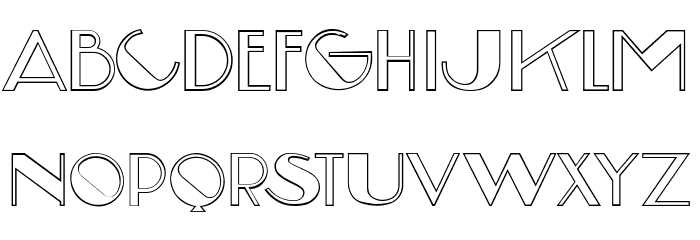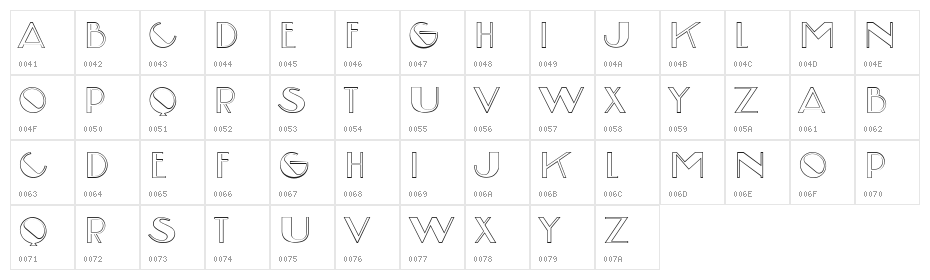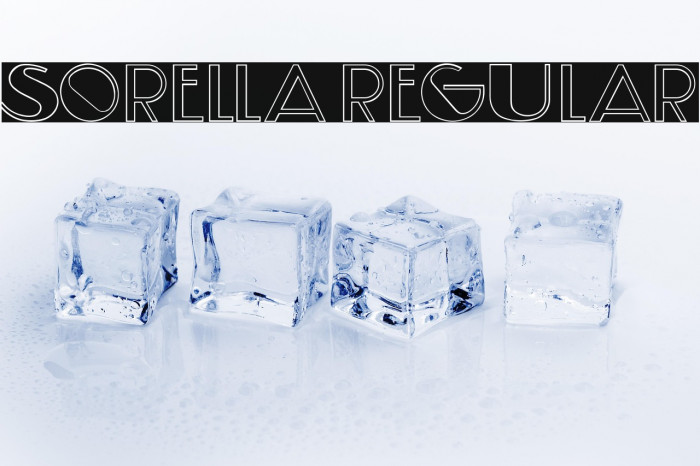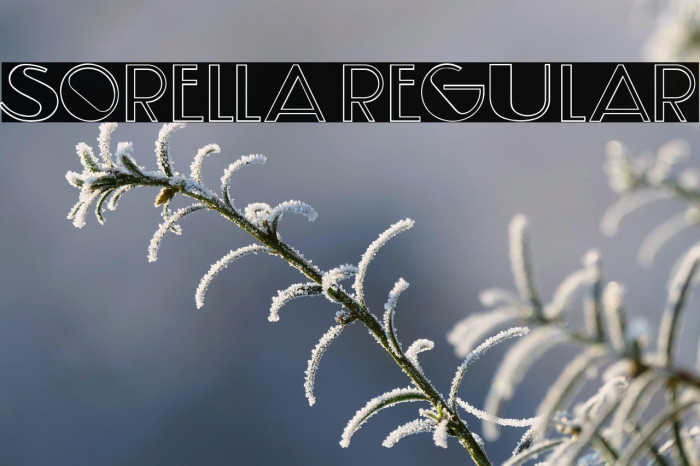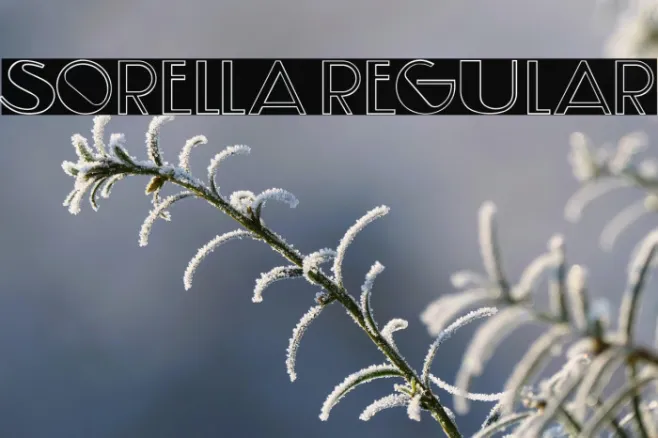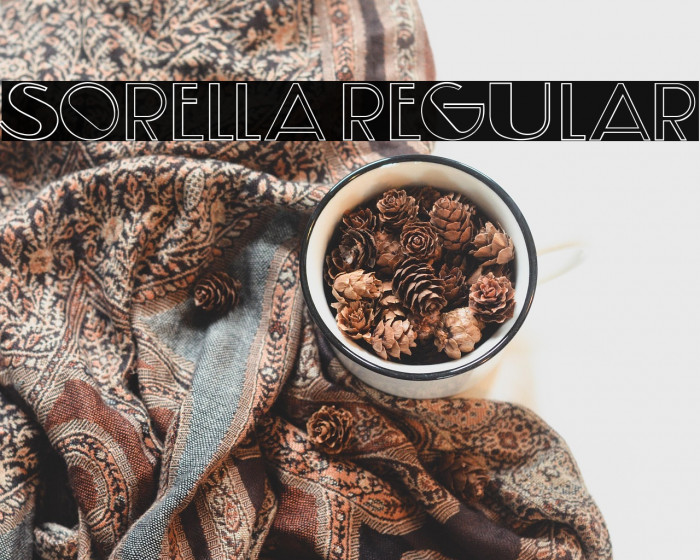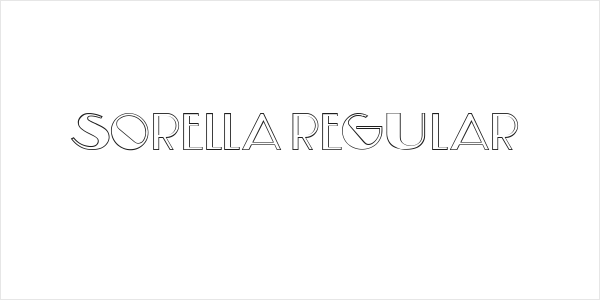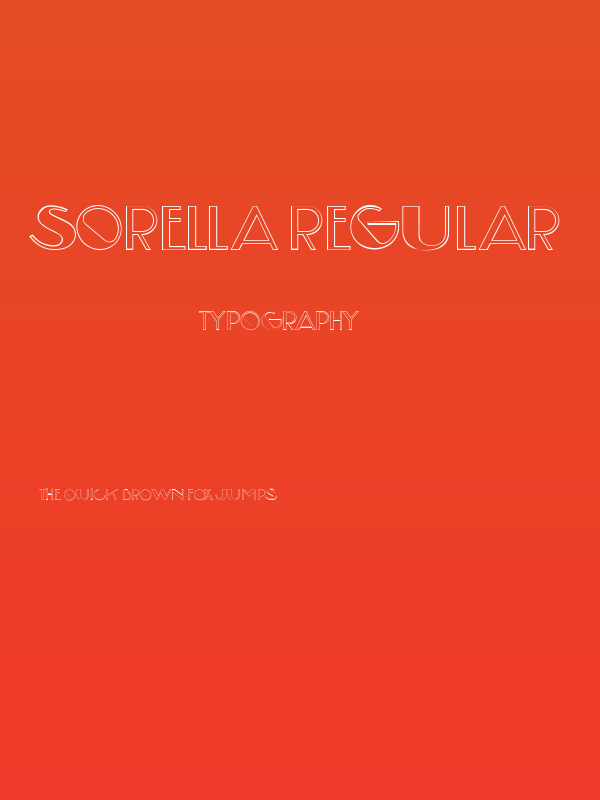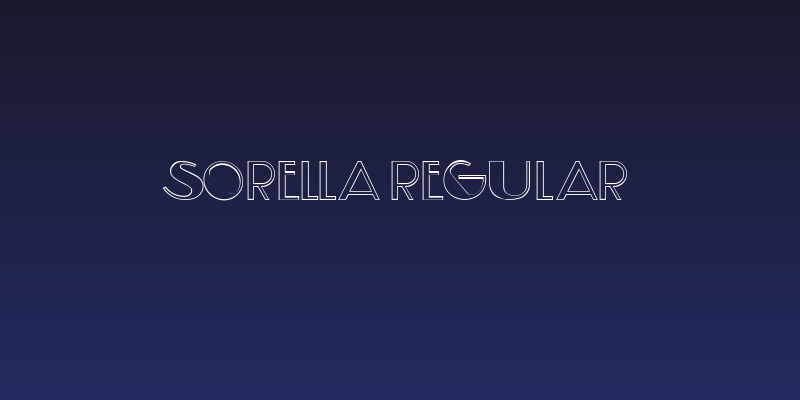
Sorella Regular Font
Sorella Regular Description
This font features a modern and geometric design with clean lines and a minimalist aesthetic. The characters are constructed with a consistent stroke width, giving it a uniform appearance. The uppercase letters exhibit a unique blend of sharp angles and smooth curves, creating a visually striking effect. The font's open and airy structure makes it highly legible, even at smaller sizes. Its contemporary style is well-suited for projects that require a sleek and professional look. The font's design is versatile, making it suitable for a variety of applications, from branding to editorial design.